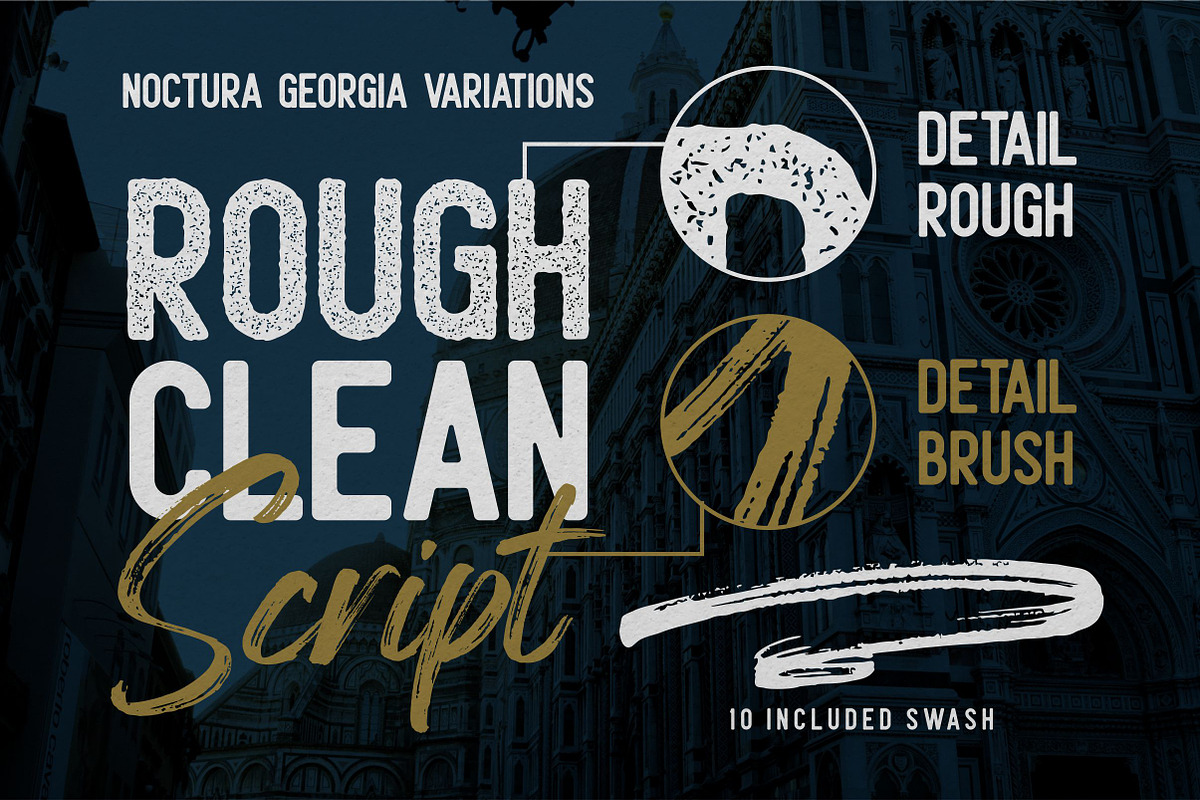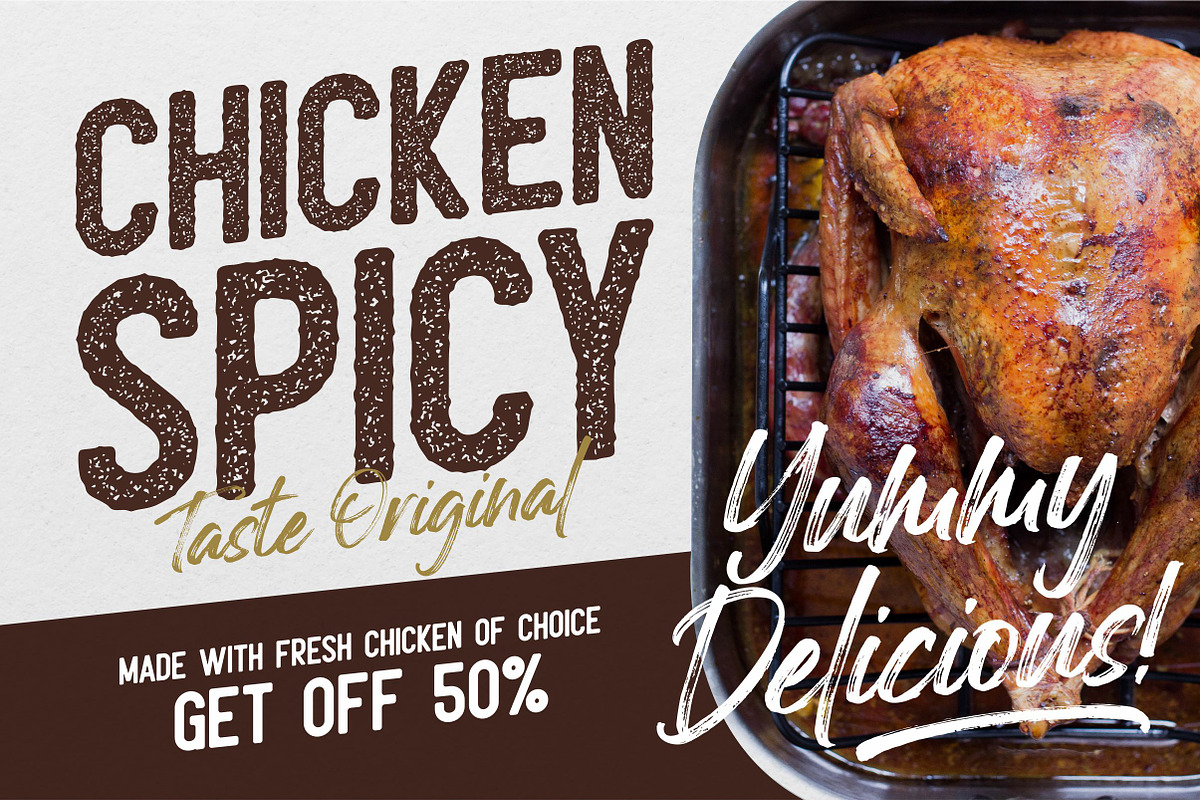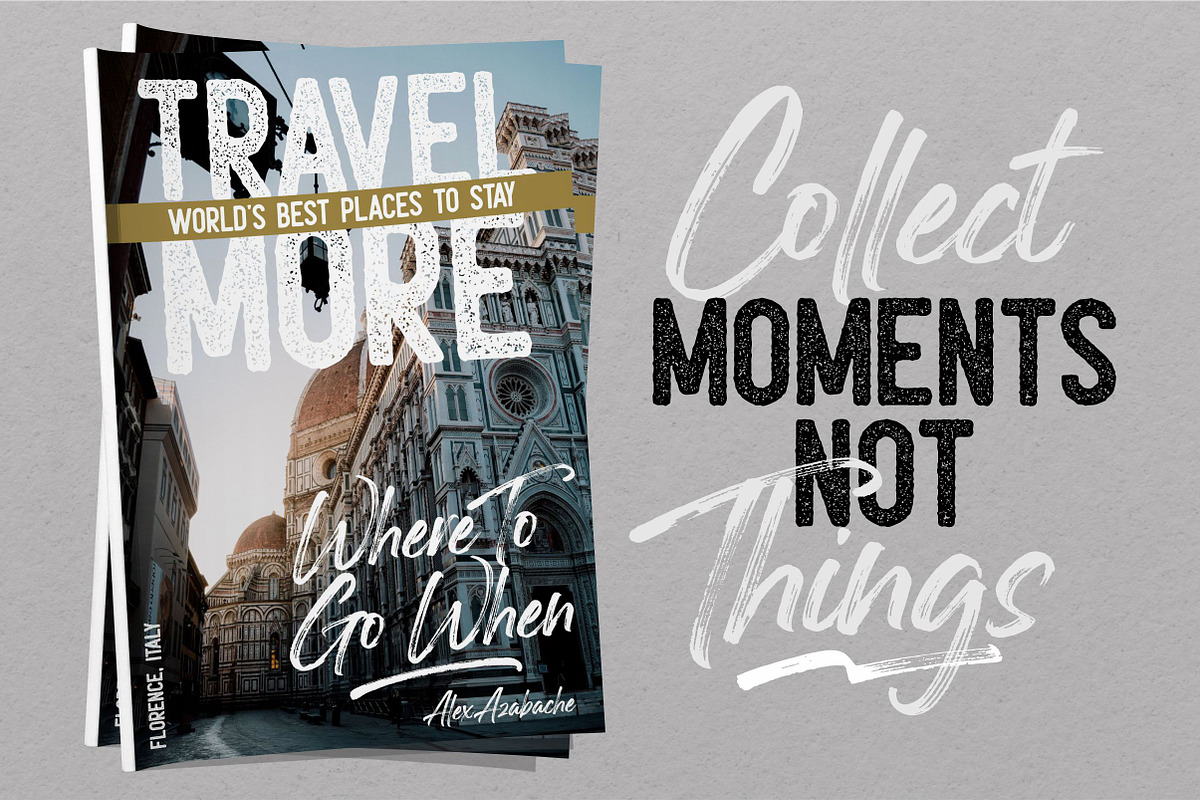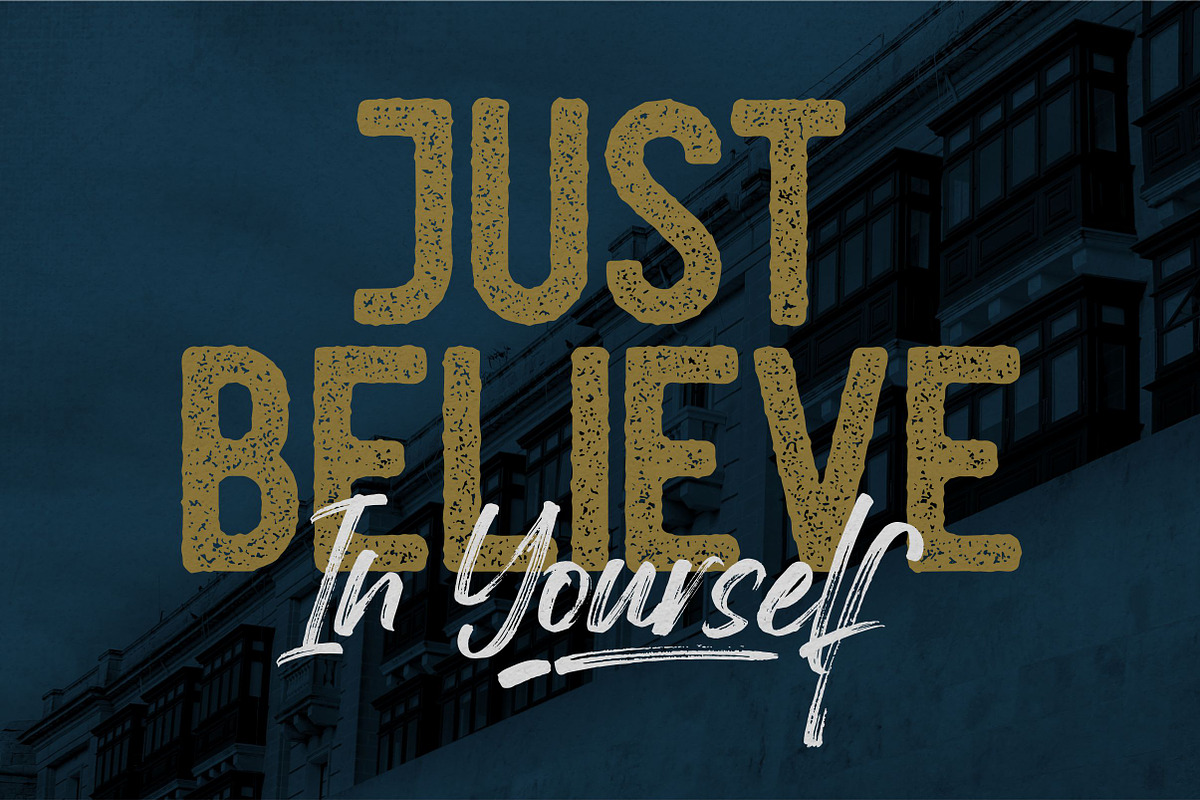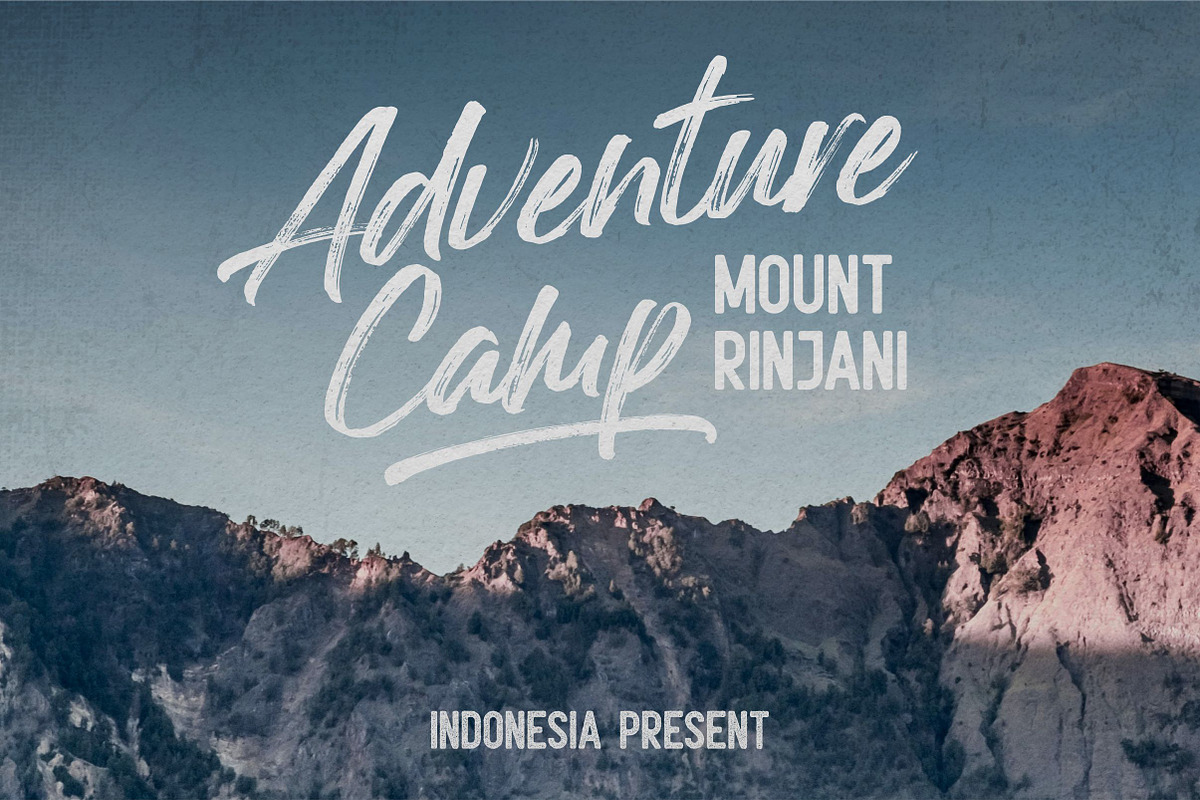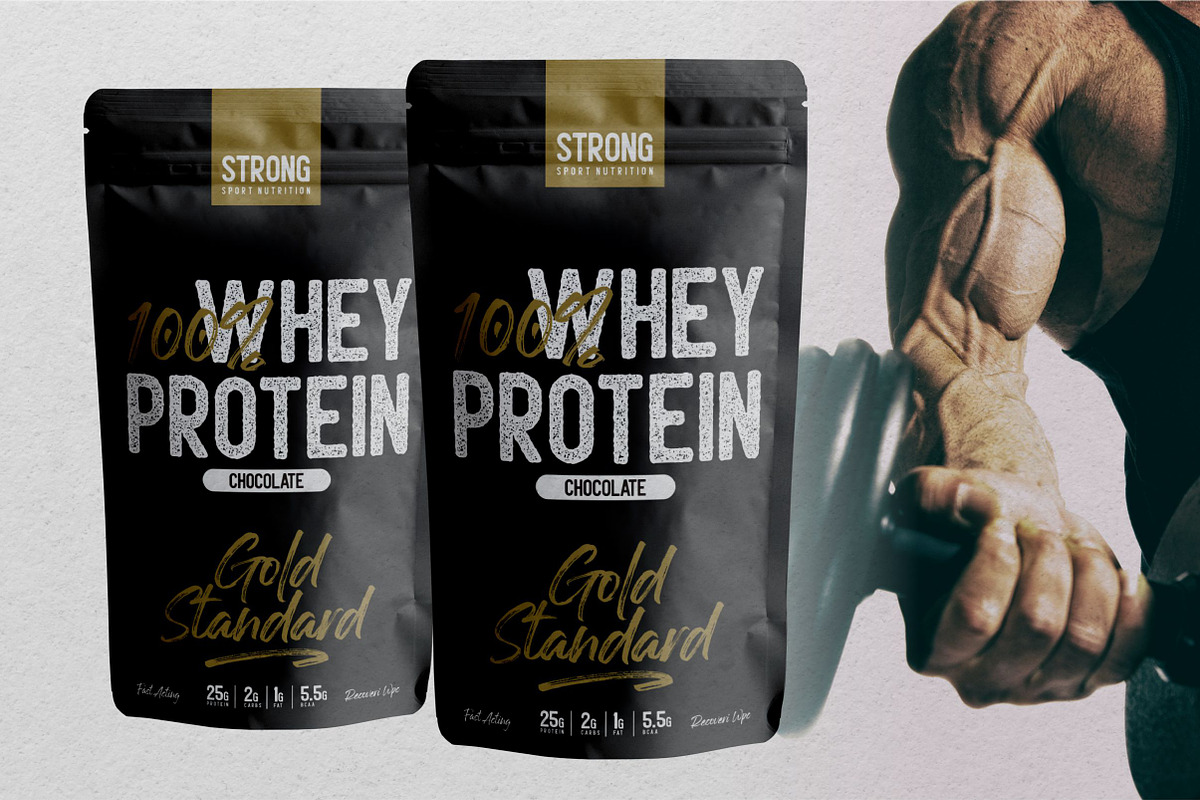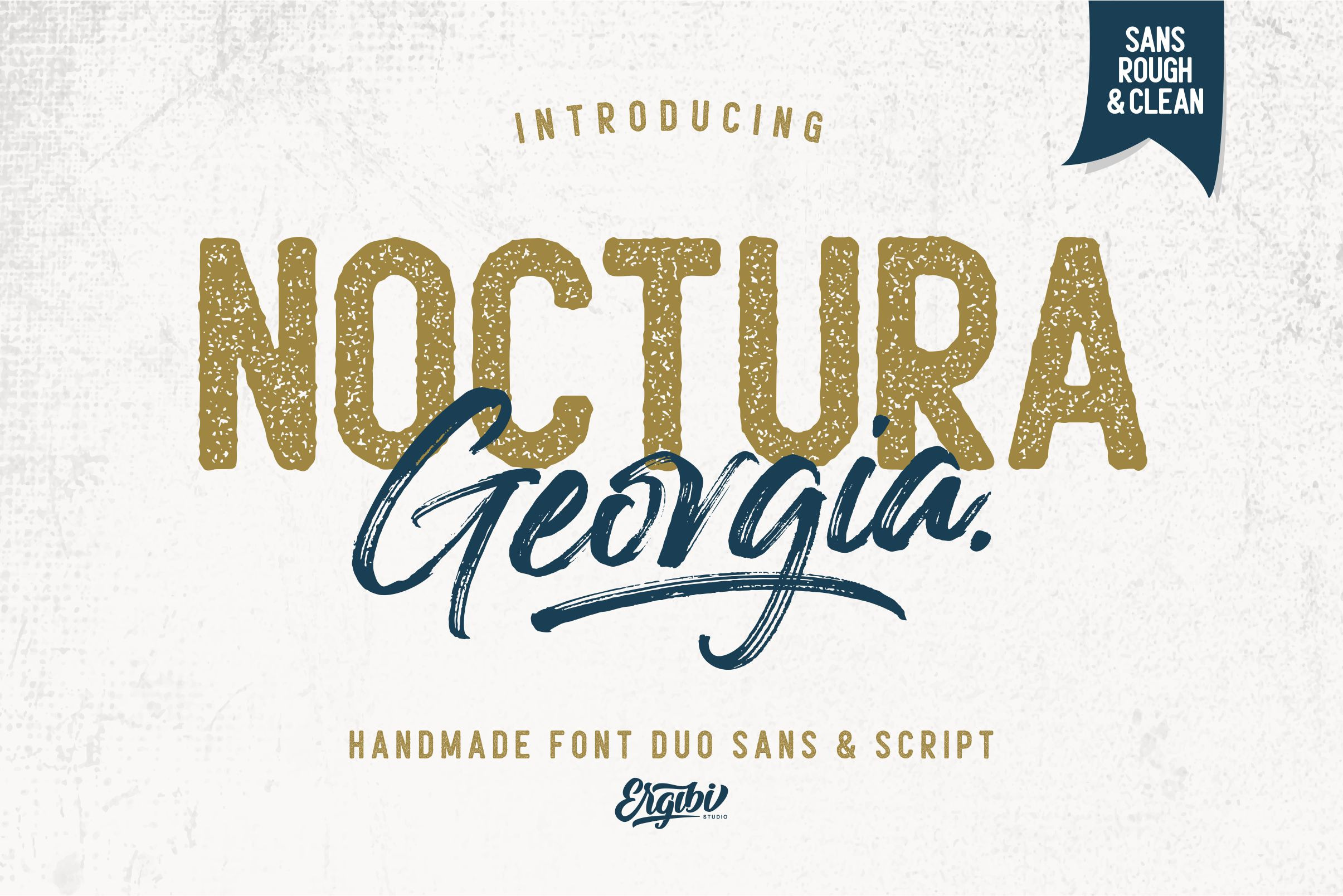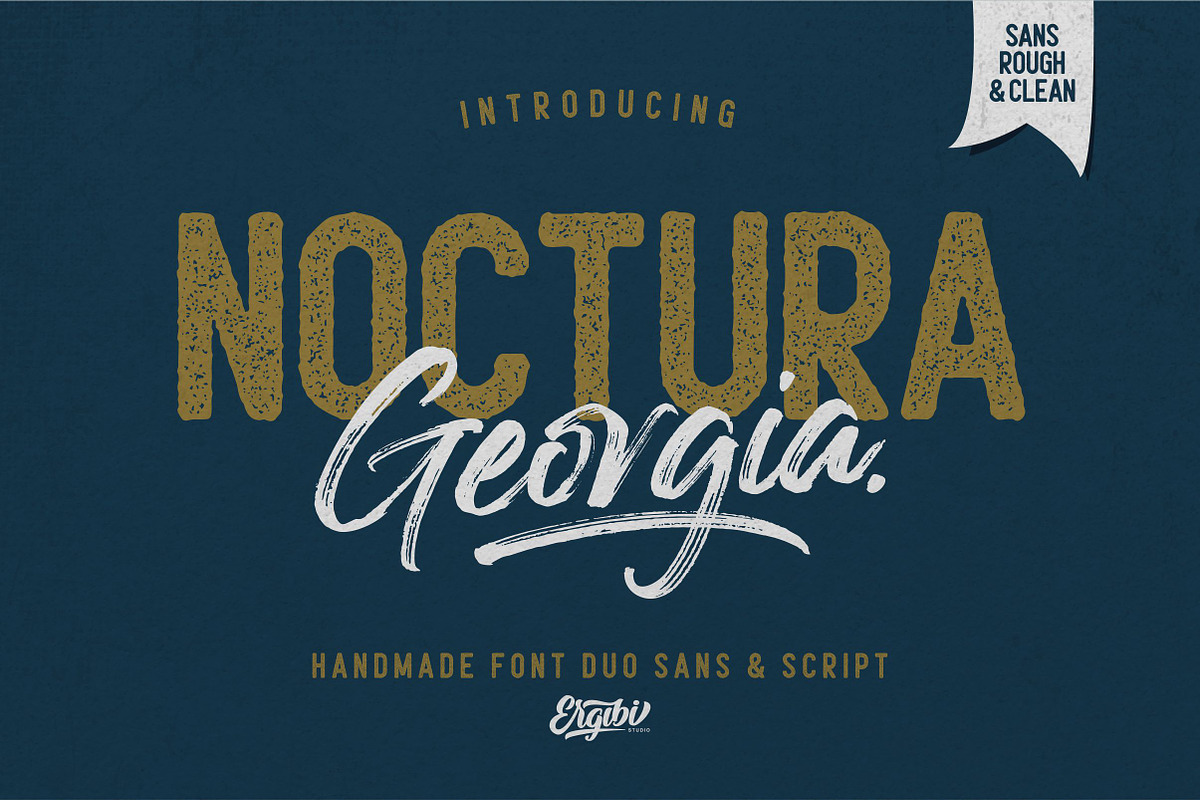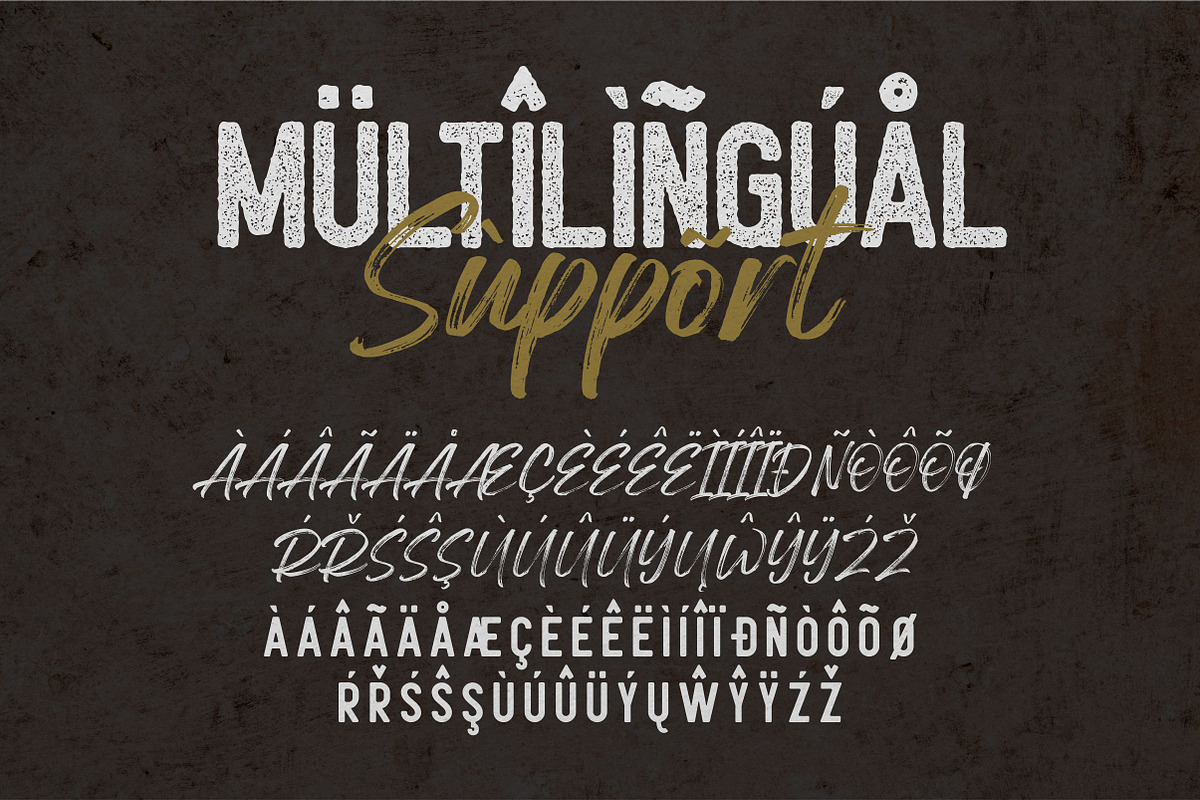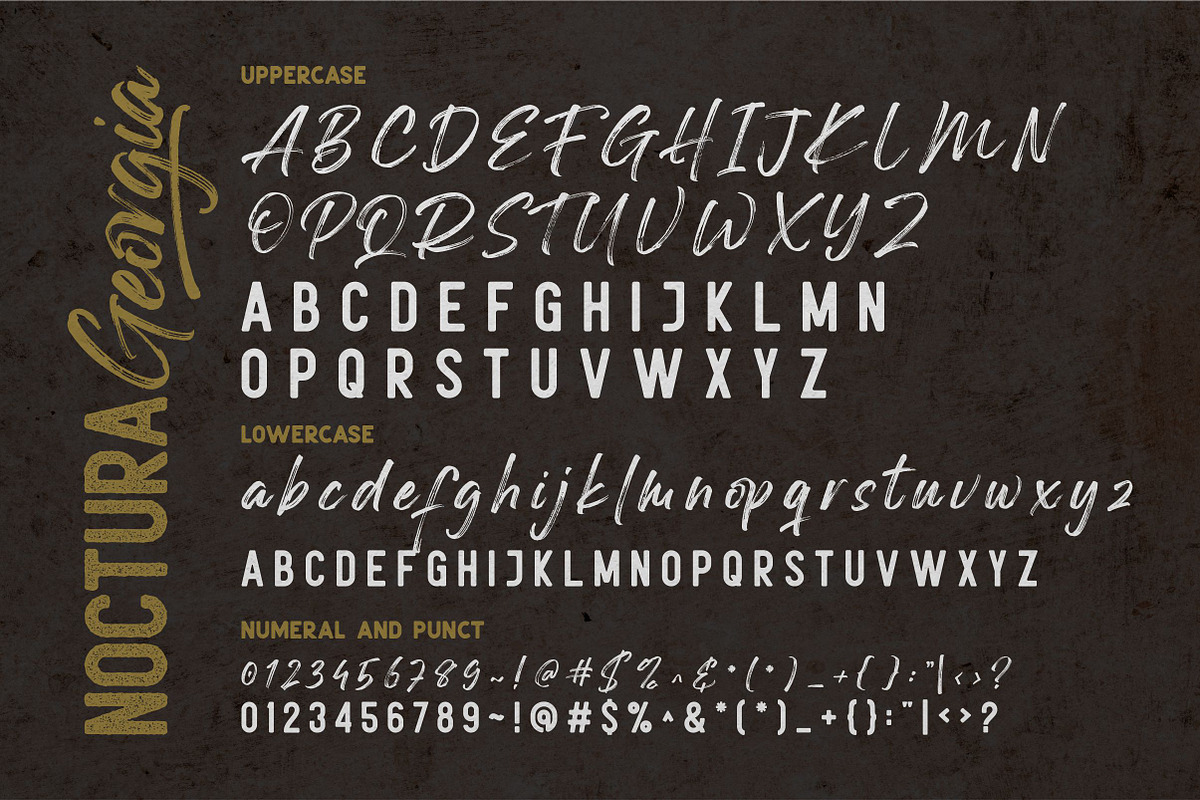
Noctura Georgia - Font Duo
Introducing Noctura Georgia is a handwriting brush effect and sans that comes with a style that seems real. This font style inspired by urban style and branded makes in many ways for your latest project. Noctura Georgia is perfect for logos & branding, photography, invitations, watermarks, advertisements, product designs, stationery, wedding designs, labels, product packaging, special events or anything that requires handwritten content.
Noctura Georgia Also available for some lowercase characters that have swash, as well as multilingual. This can be accessed easily via opentype in Photoshop / Illustrator.